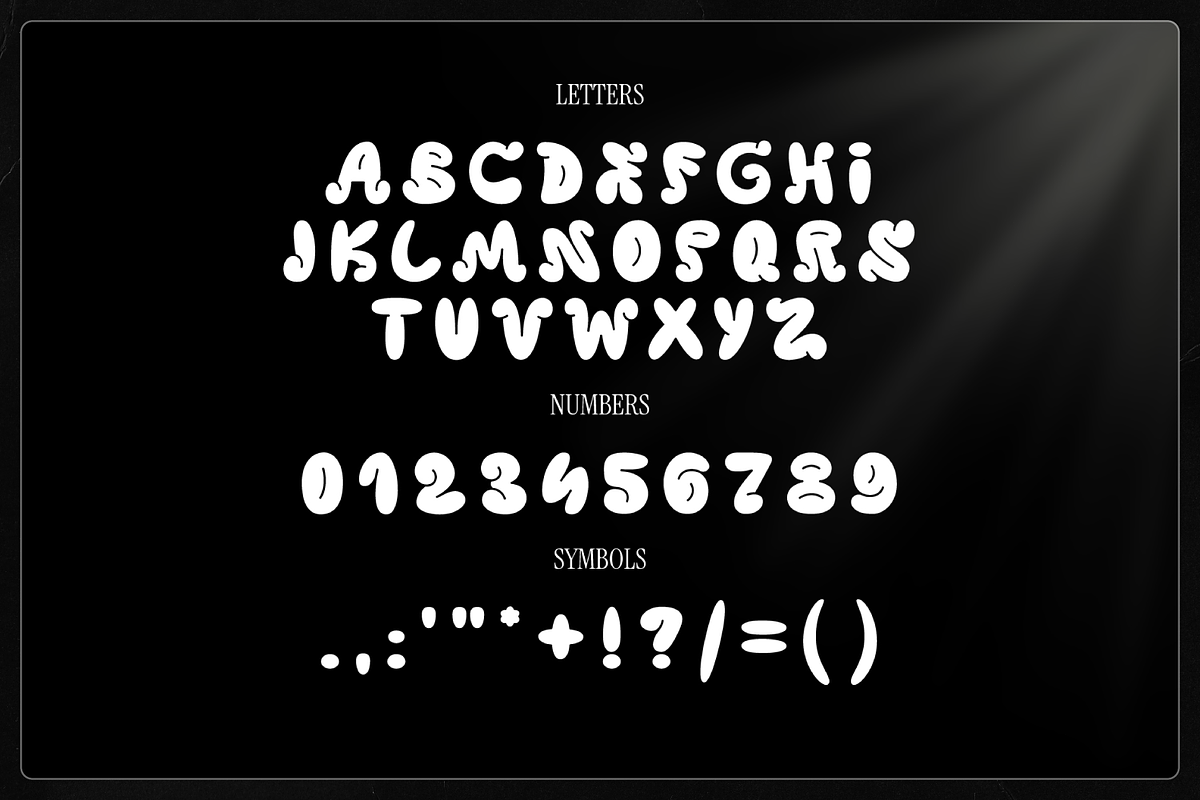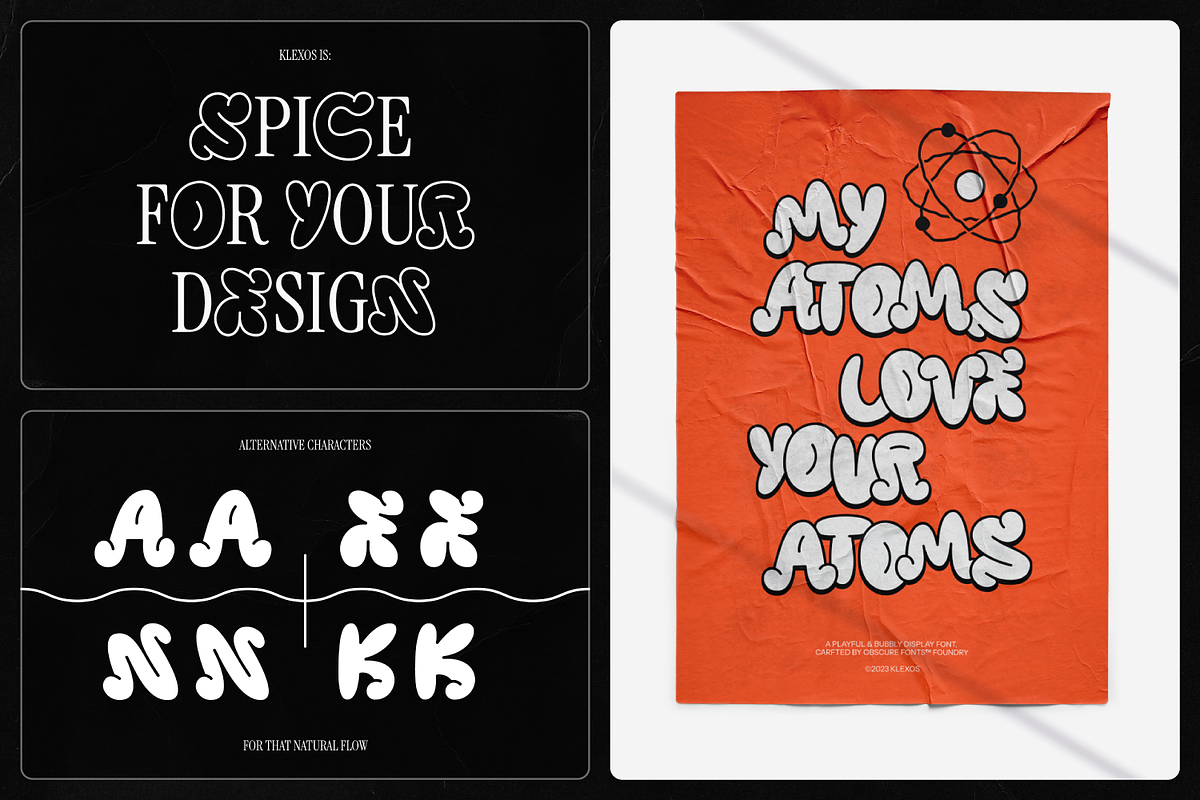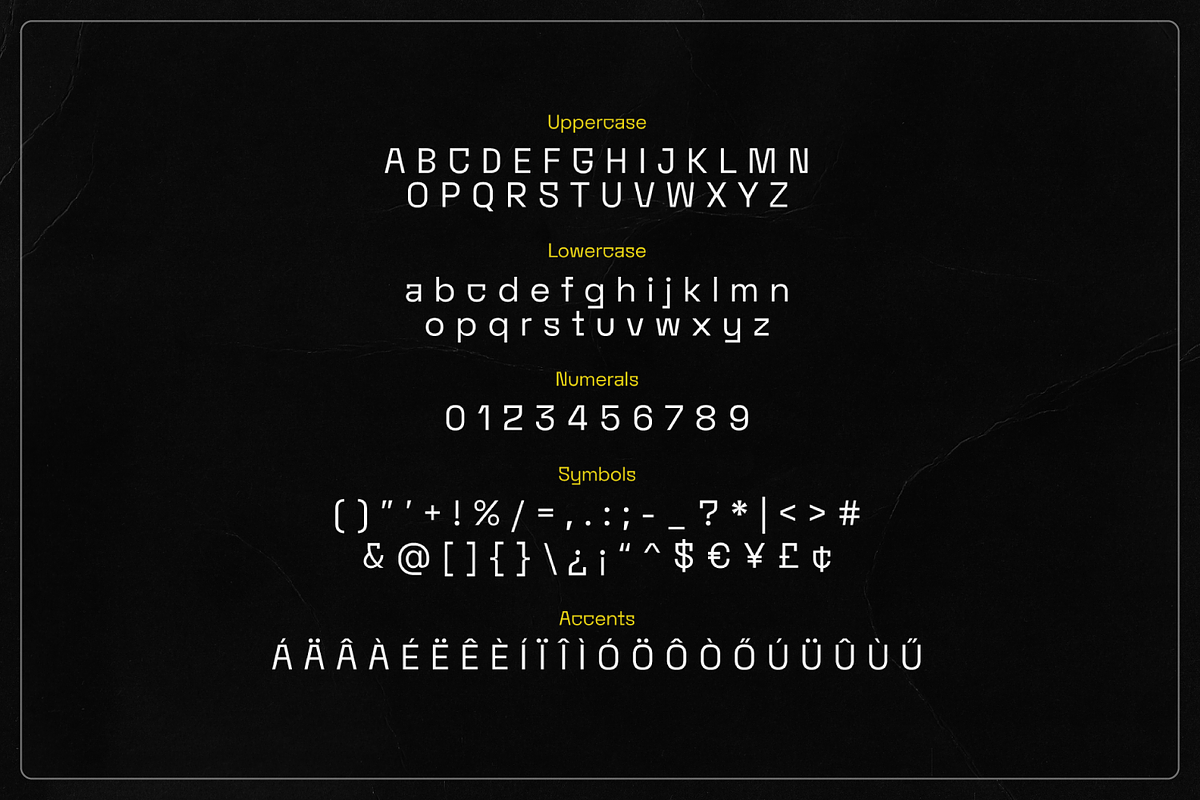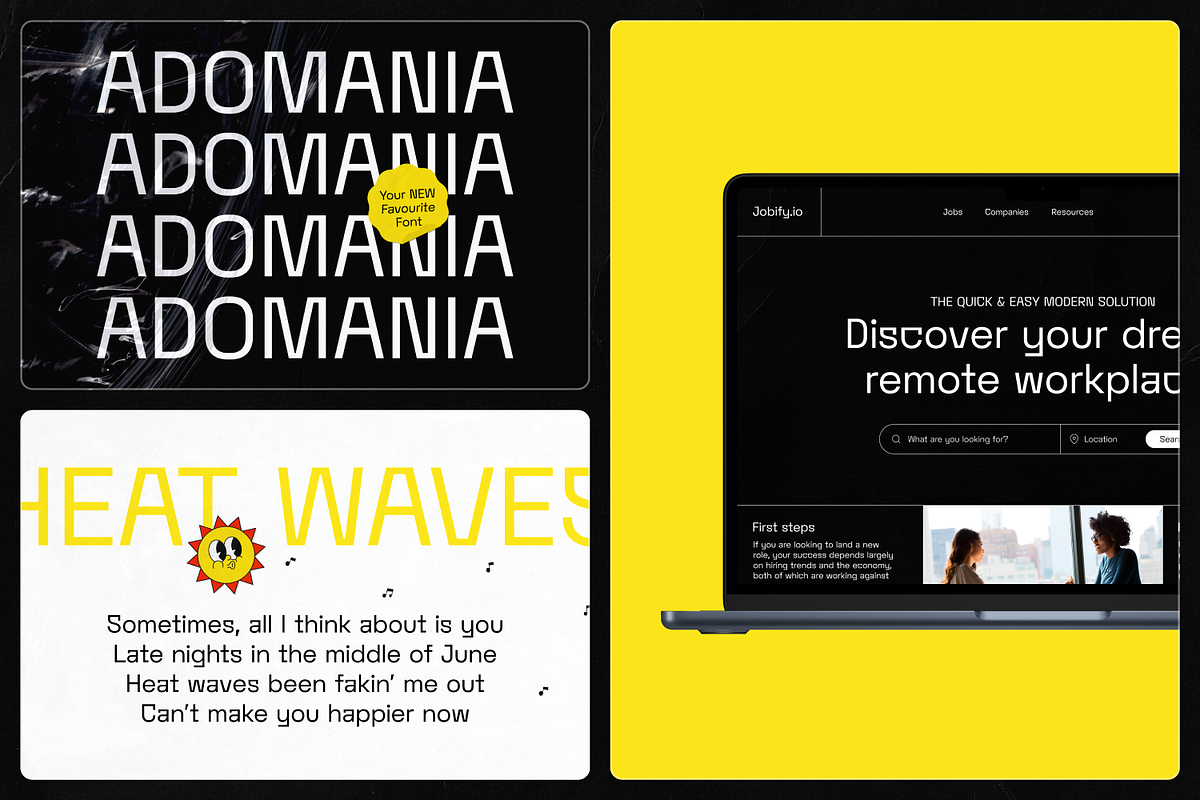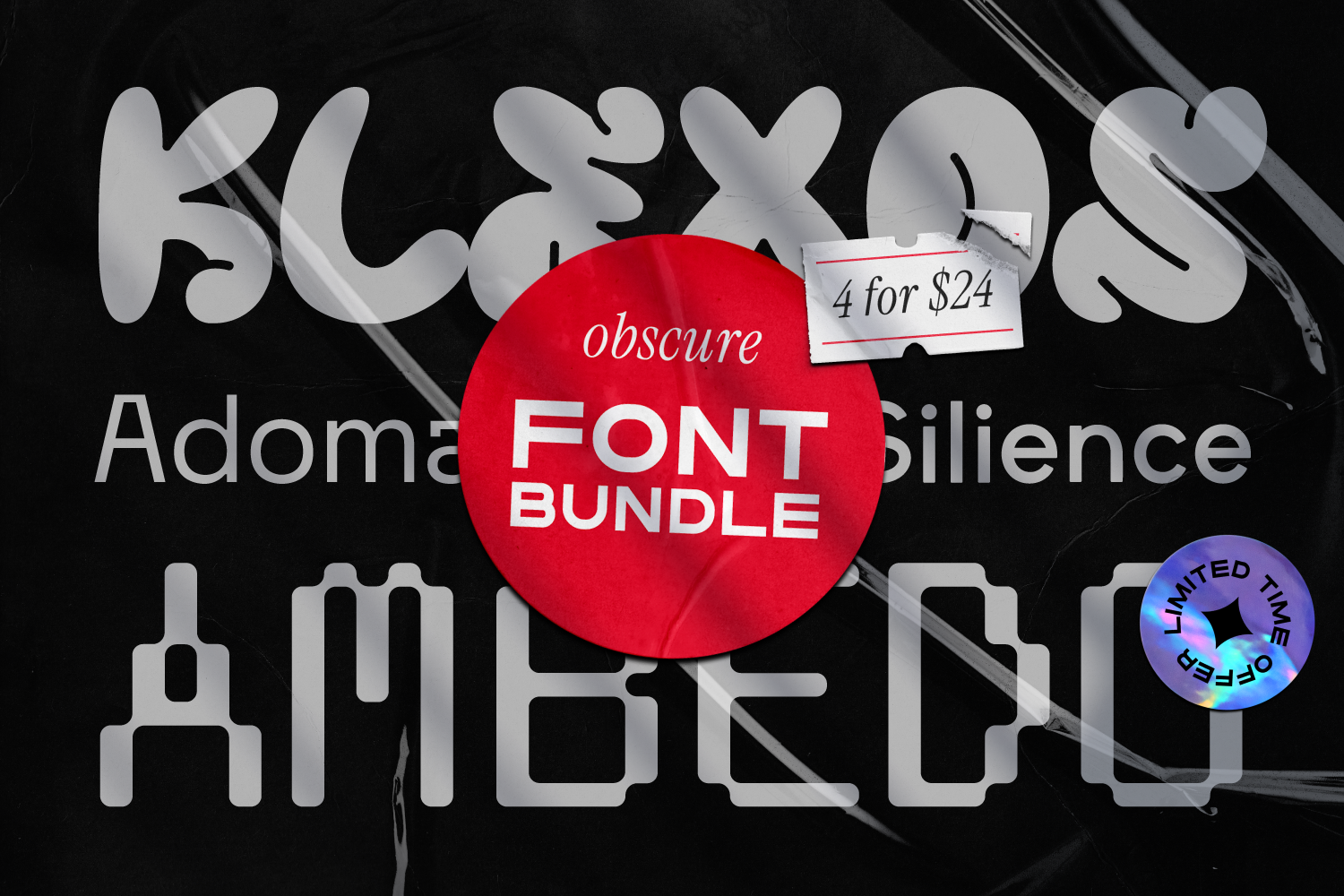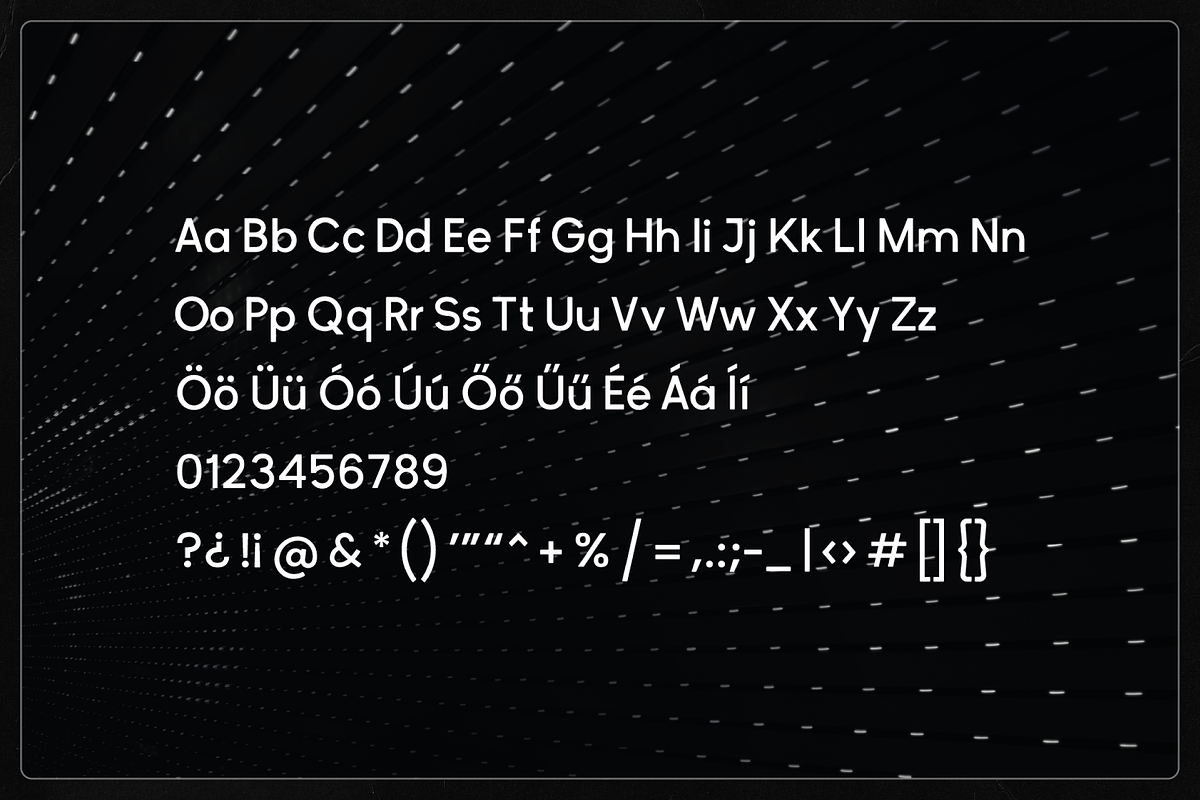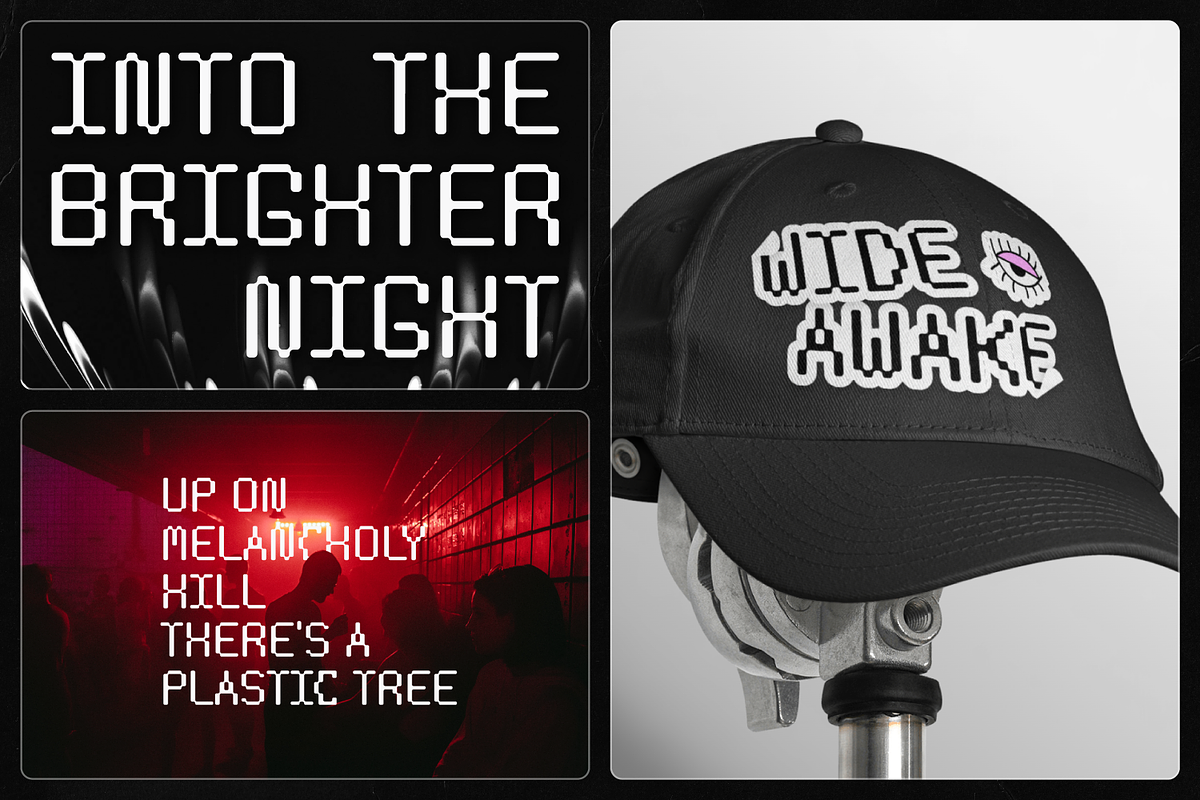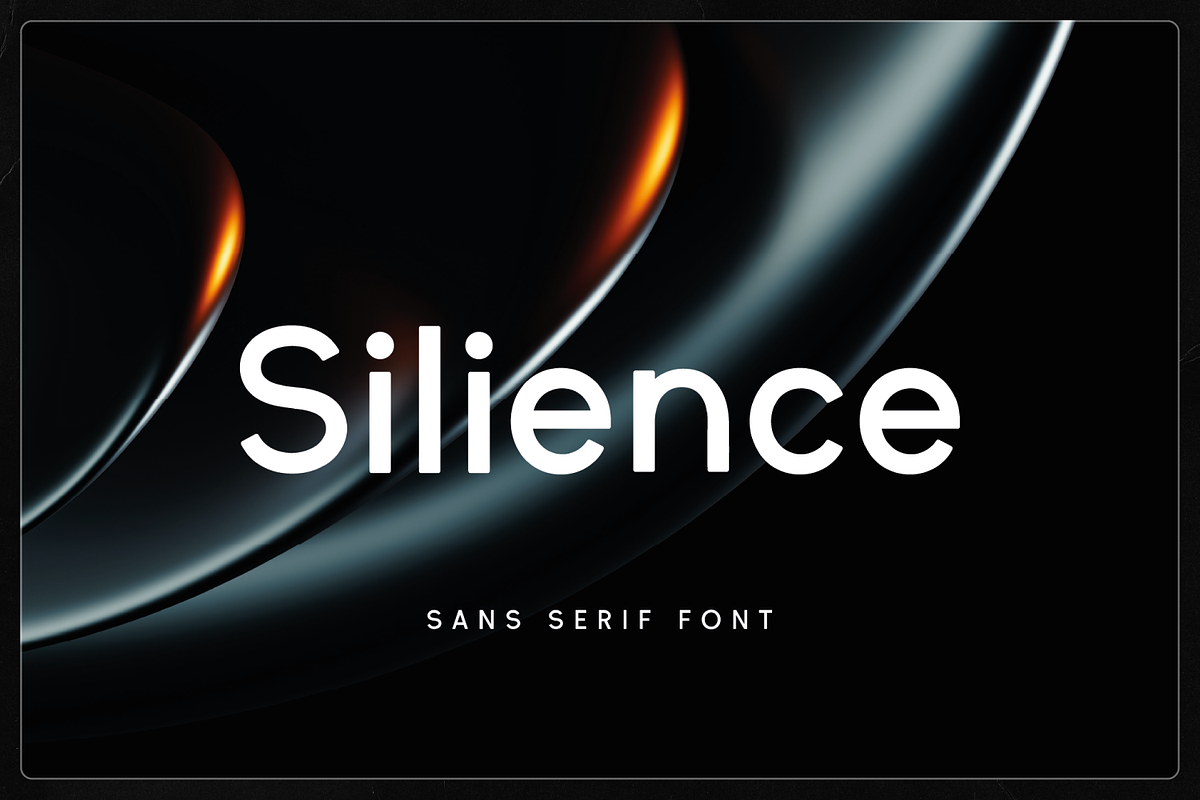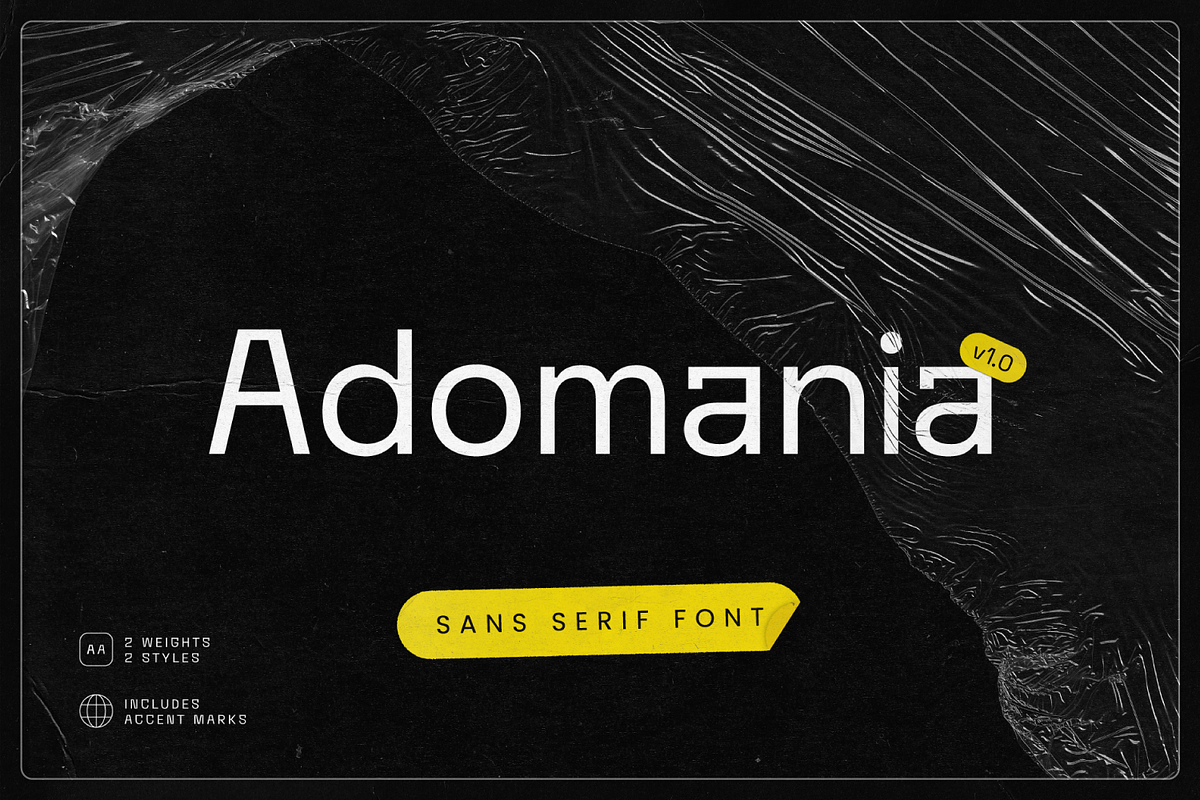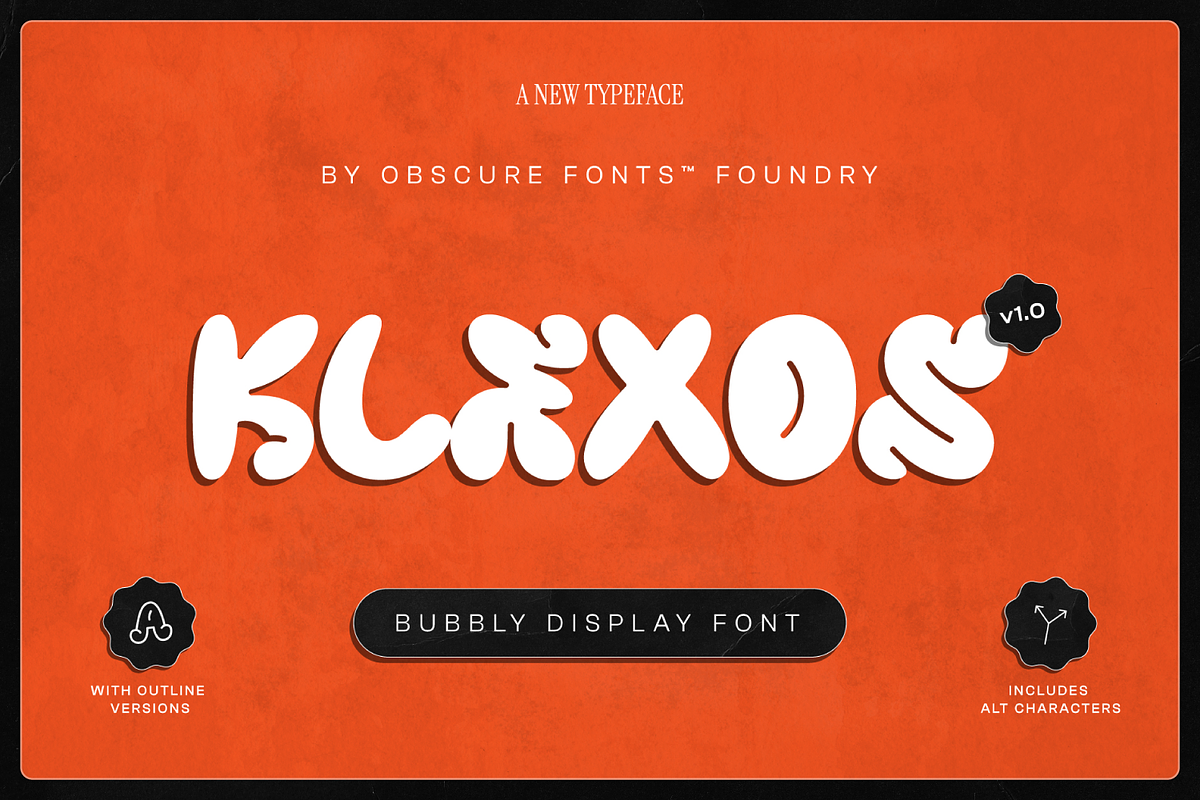
Obscure Font Bundle
- Klexos (A playful & bubbly display font inspired by old-school street art with a modern touch.) Styles: Regular (+alternative), Outline (+ alternative)
- Adomania (An experimental, yet professional sans serif font for projects that need some spice.) Styles: Regular, Italic, Light, Light Italic
- Ambedo (A modern, modular display font with a flowing digital feel to it, designed to feel retro.) Styles: Regular
- Silience (A modern, geometric typeface with a simple, elegant, yet friendly personality to it.) Styles: Regular, Semibold